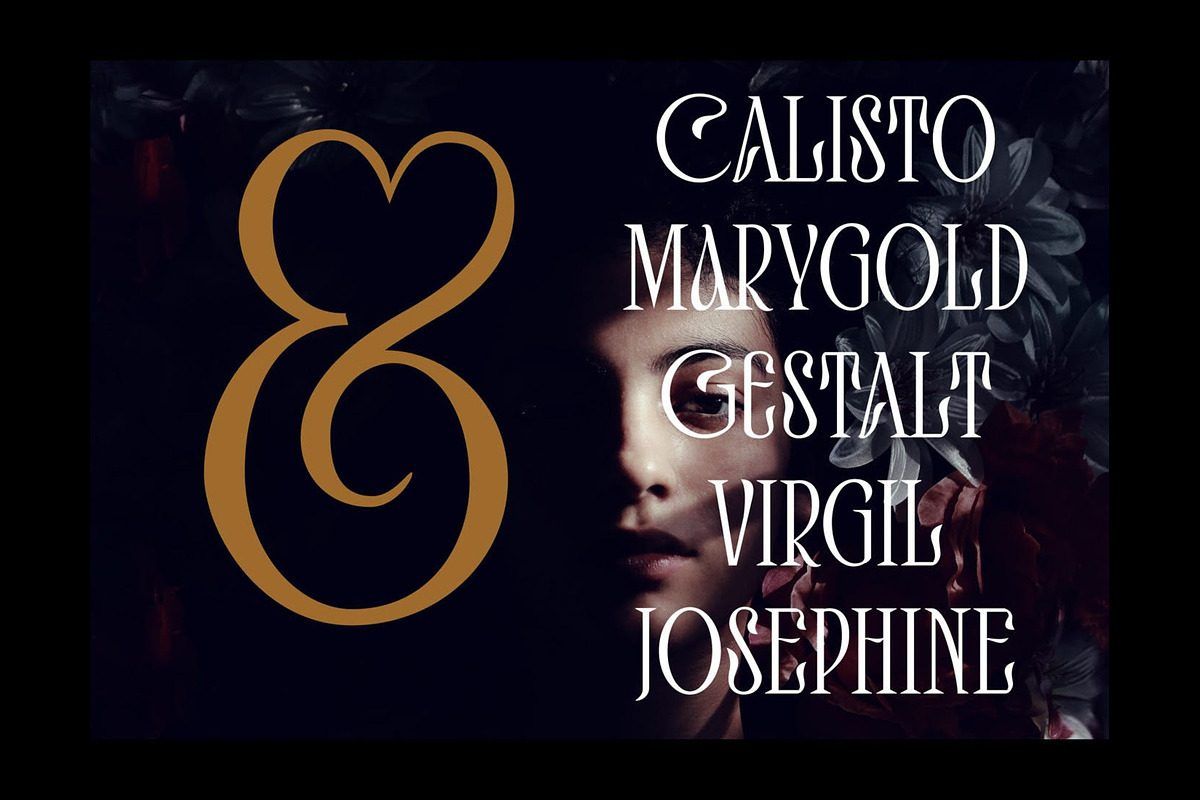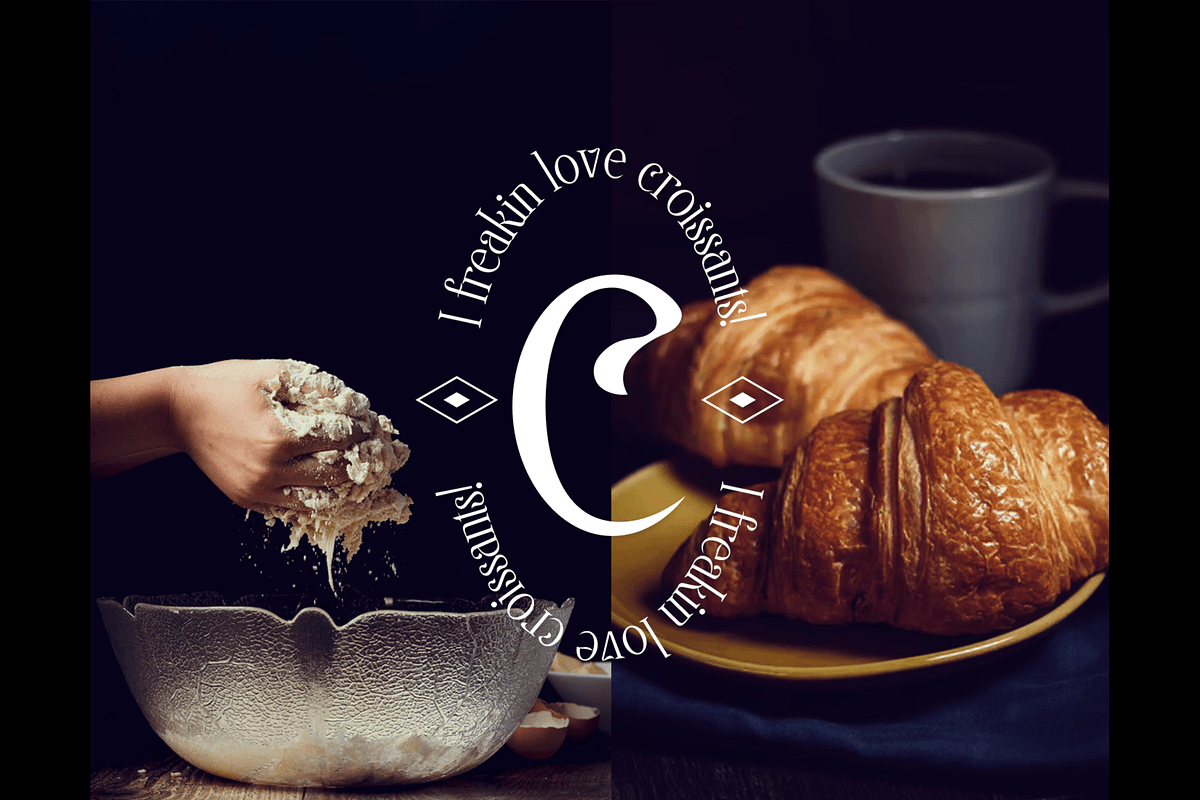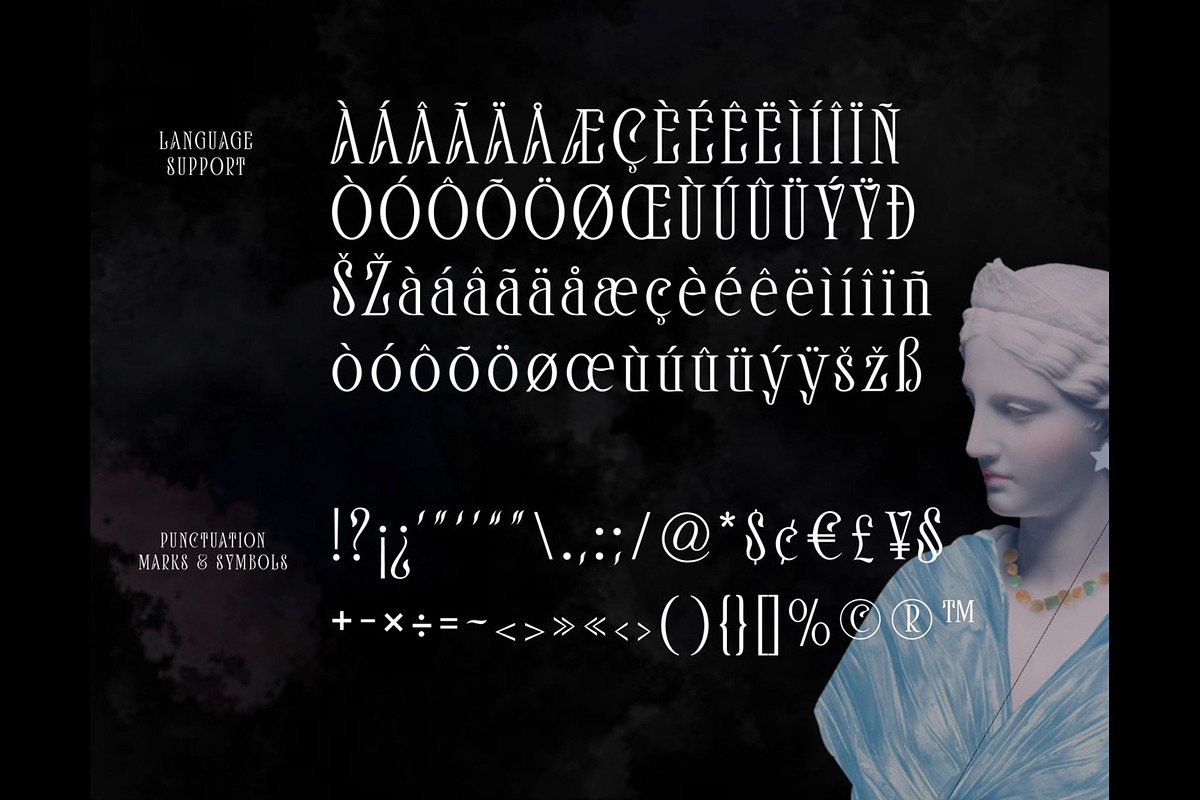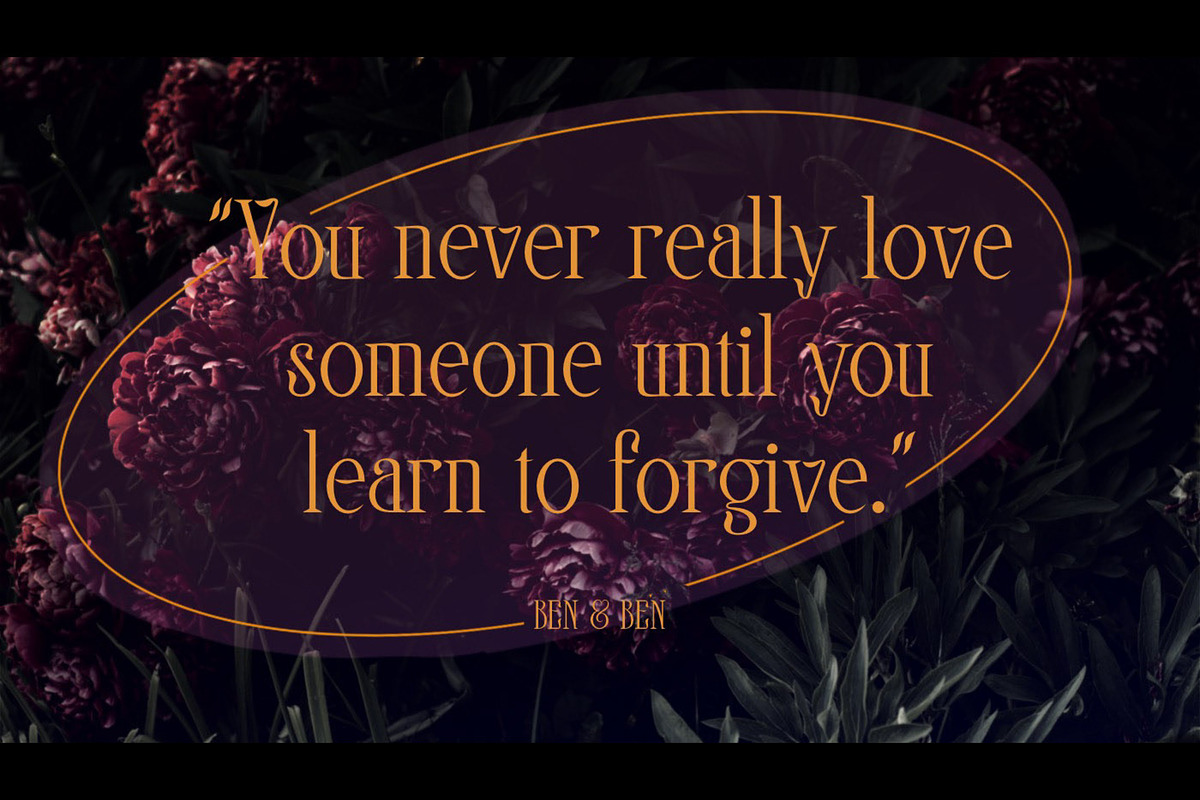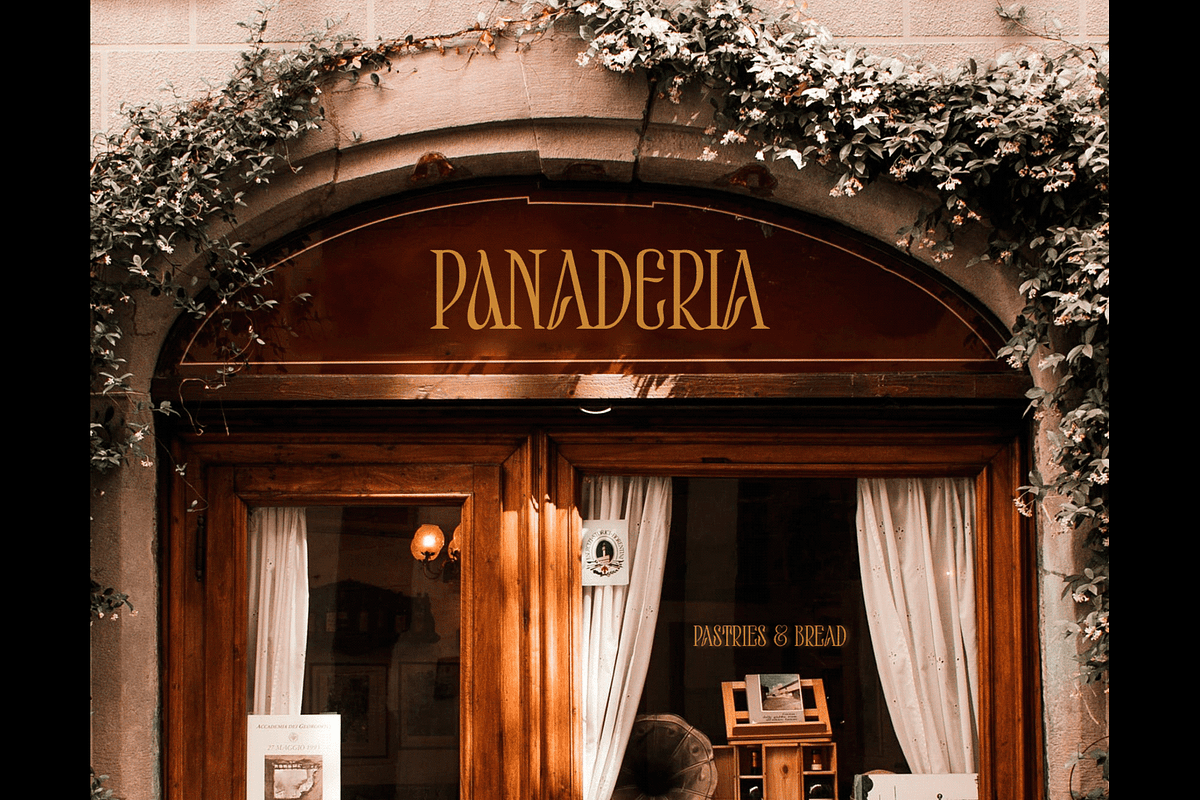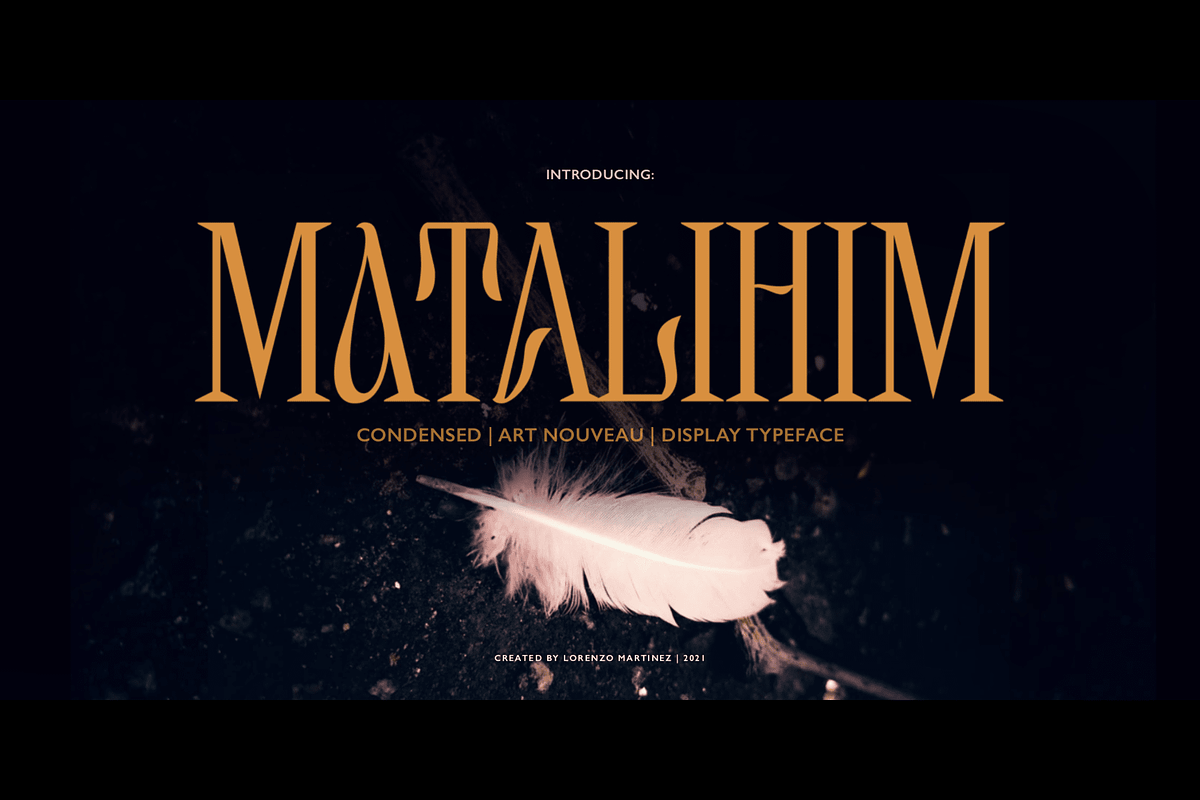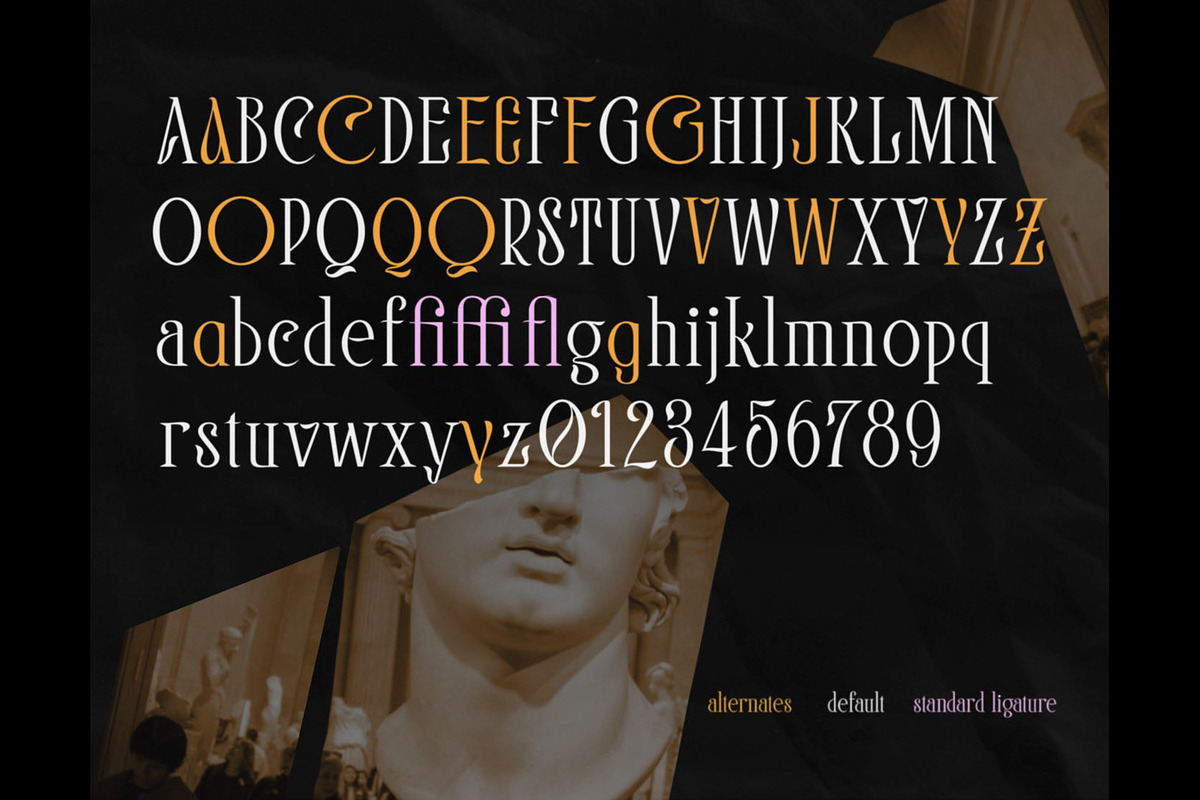
Matalihim- Art Nouveau Typeface
"Matalihim" is a condensed display font that combines modernism and Art Nouveau characteristics to form a serene and decorative typeface.
Matalihim like all my other fonts is a play of Filipino words. "Mata" which means eye in English; and "Lihim" which means secret in english. Together it literally means "eye of secret". Matalihim is also a pun on the filipino word "matalim" which means "sharp".
Use it as an elegant solution for your next magazine layout, or choose Matalihim for any graphics that require a sleek look with an elegant and serene flair. You may be able to use it in body type as well. (Just not the one with the very small size)
*This font includes letters, numbers, alternates, standard ligatures, multilanguage support, and all essential marks needed.